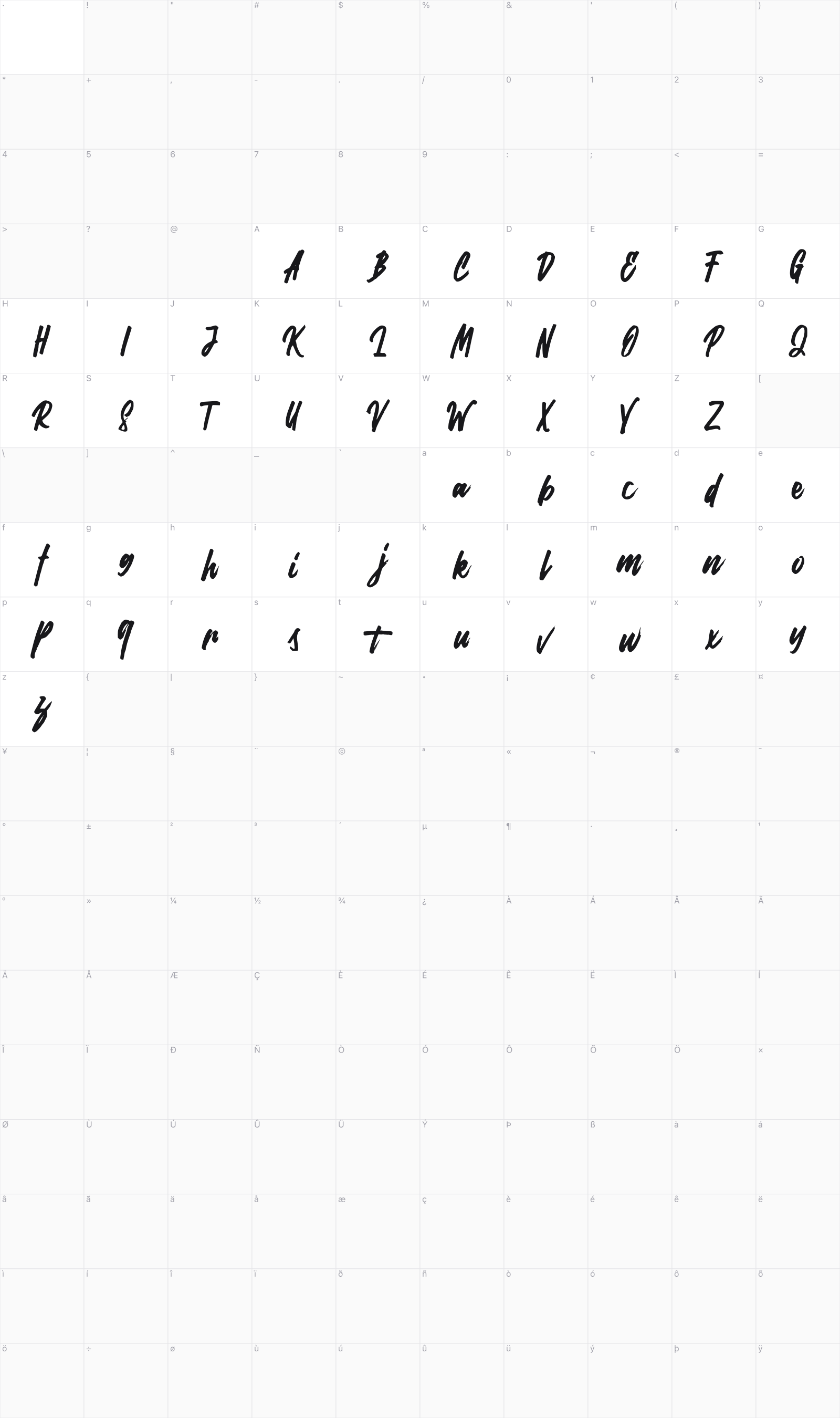
Rabites
Rabies is a bold brush face from Typefar with thick, energetic strokes that feel like they were laid down fast and with real force. The letterforms carry a handwritten looseness that stays expressive without falling apart, giving headlines and posters a raw, physical presence. It reads as casual but confident, the kind of type that works best when it's big and unapologetic.